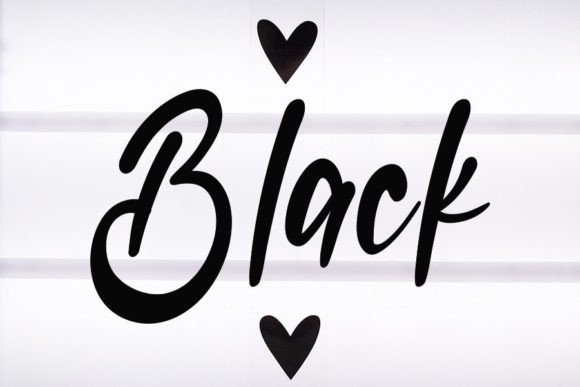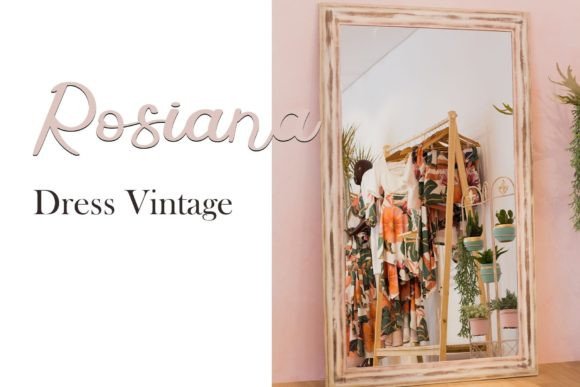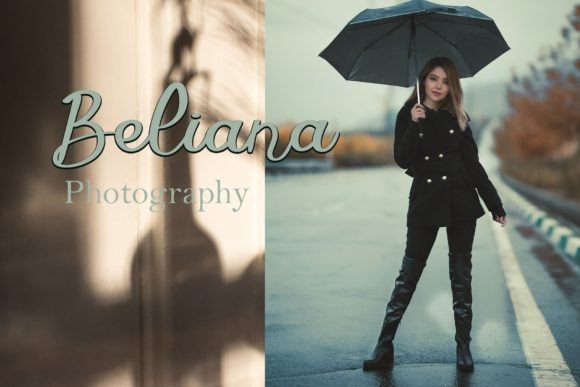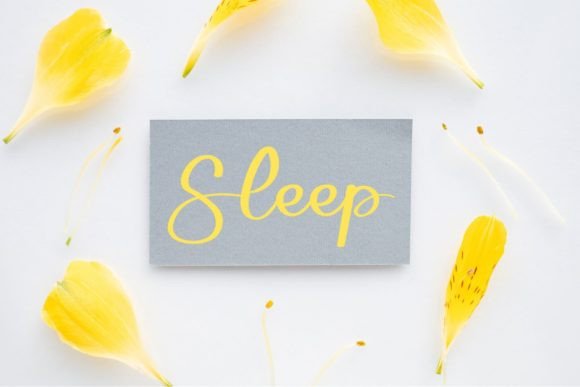
About Hello Bella Font
Hello Bella is a delightful and romantic calligraphy script font that brings a sweet and enchanting essence to your creative projects. With characters that appear to dance gracefully along the baseline, this font exudes a sense of movement and fluidity, creating a captivating visual experience. It serves as a perfect choice to infuse a luxurious spark into any design or project you aspire to develop.
This font’s playful and whimsical nature makes it a versatile companion for a wide array of creative endeavors. Whether you’re crafting wedding invitations, love notes, branding materials, or any project that calls for a touch of romance, Hello Bella effortlessly weaves its charm to enhance the overall aesthetic. The calligraphic strokes convey warmth and a personalized touch, making it an ideal choice for expressing emotions and establishing a heartfelt connection with your audience.
Imagine incorporating Hello Bella into your designs and envision how it effortlessly elevates your content. The characters in this script font transcend mere letters; they become expressive elements breathing life into words. Each stroke is meticulously crafted to evoke a sense of joy and happiness, contributing to the overall mood and sentiment of your design.
Beyond its romantic charm, Hello Bella boasts versatility that extends into branding projects, adding a touch of sophistication to your logo or promotional materials. Its luxurious aesthetic makes it a standout choice for endeavors where you aim to convey opulence and refinement.
As you explore the possibilities with Hello Bella, you’ll discover its seamless integration into various design themes, enhancing the visual appeal of your creations. Its ability to evoke feelings of happiness and romance makes it a font that not only communicates words but also emotions.
In conclusion, Hello Bella is more than a script font; it’s a design element that infuses joy and romance into your projects. Whether you’re creating something whimsical, elegant, or heartfelt, let Hello Bella be the brushstroke of emotion that brings your creative vision to life, adding a luxurious and enchanting spark to every detail.